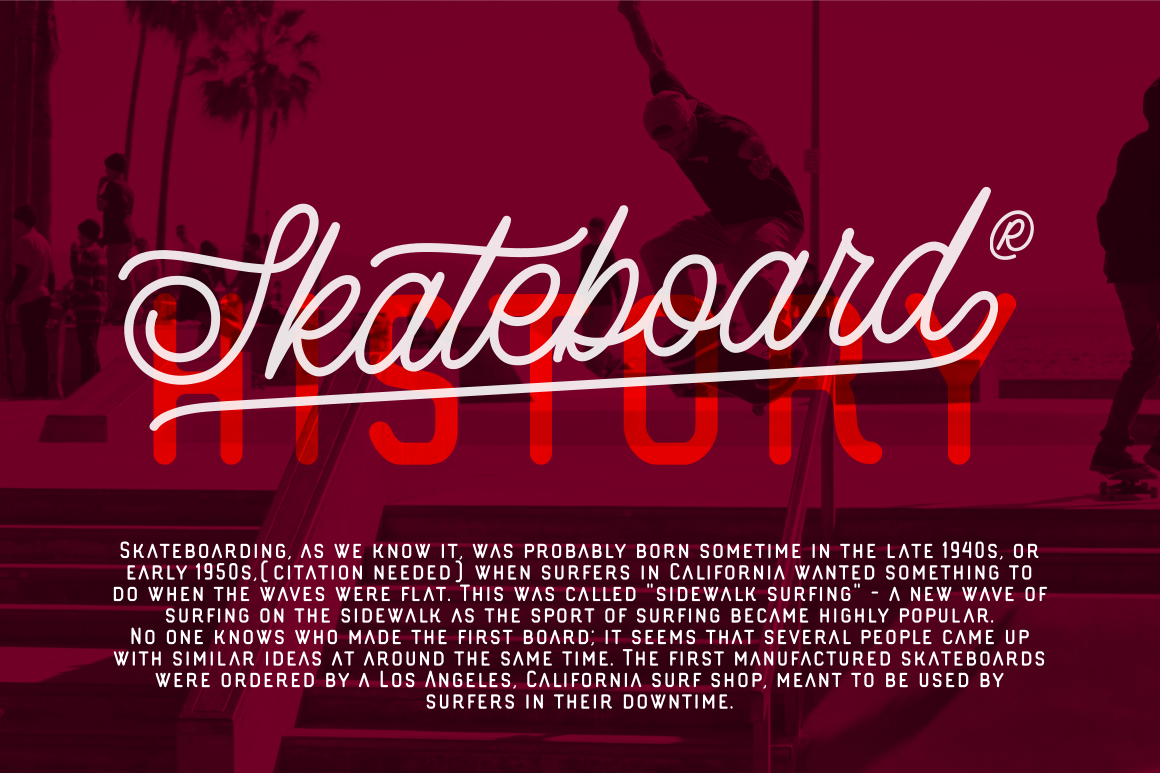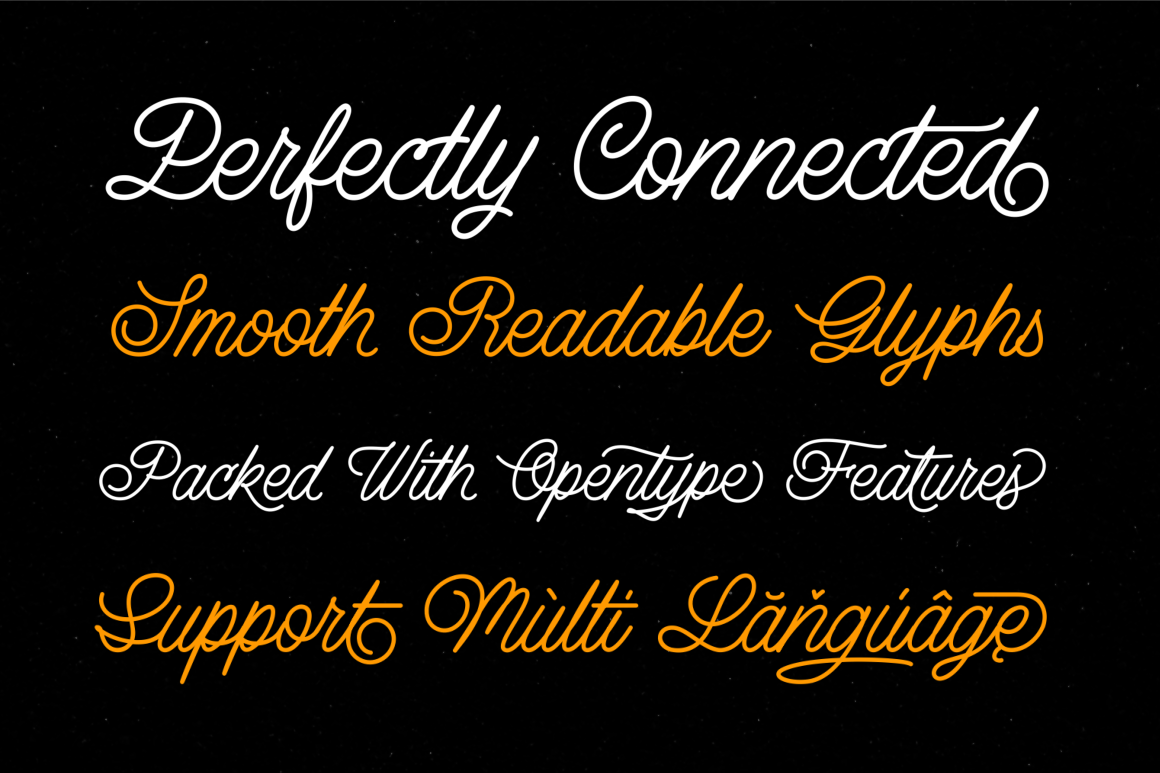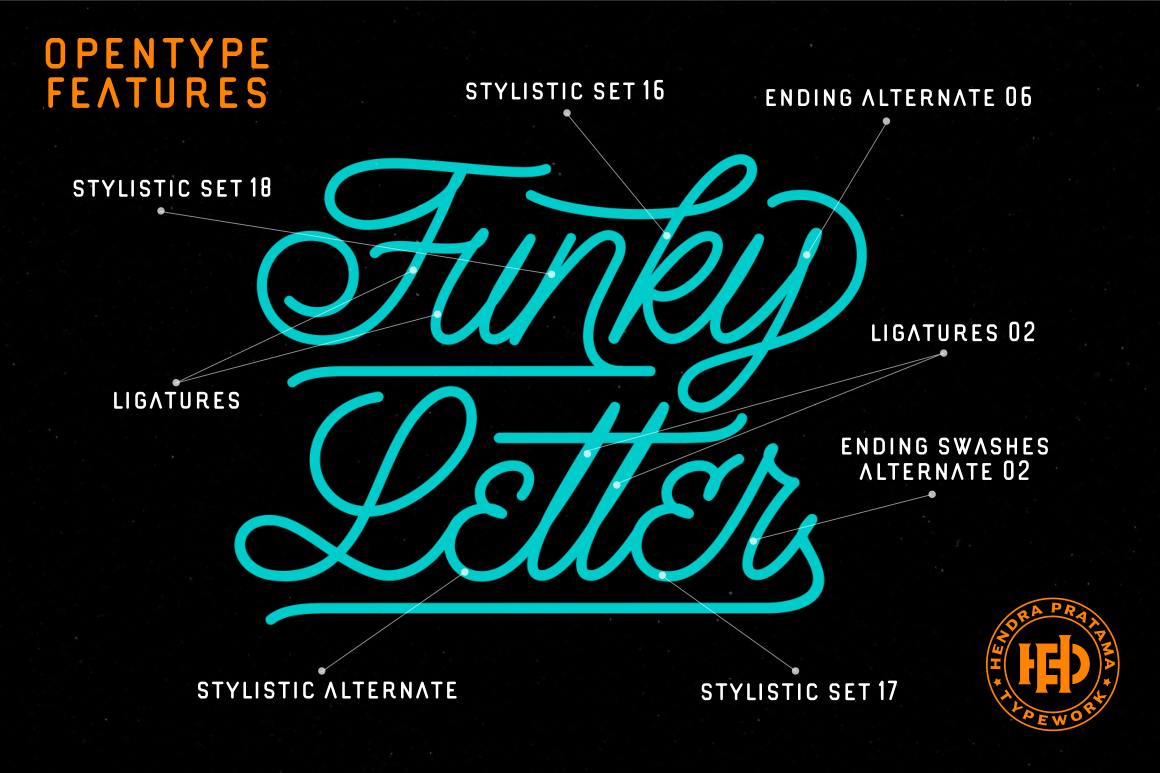
Introduction to Lazy Ride Font
As a designer, have you ever found yourself staring at a blank canvas, searching for the perfect font to bring your creative project to life? The excitement of a new design challenge can be thrilling, but it’s the little details that often make all the difference. For those who crave high-quality design resources, the discovery of a new font can be a game-changer.
Enter the Lazy Ride Font, a stunning mono-linear script font born from a custom logotype for the “Lazy Ride Club”, a classic motorcycle club. This beautiful font is not only a valuable addition to any designer’s toolkit, but it’s also PUA encoded, making it easy to access the available glyphs and swashes.
Whether you’re working on a design project or simply looking for a free download to add some flair to your next creative endeavor, the Lazy Ride Font is sure to impress. With its transparent background and versatile design, it’s the perfect resource for any designer looking to elevate their work.
Key Features of Lazy Ride Font
- Unique characteristics: cursive, handwritten, and script font styles
Honest Review: Lazy Ride Font
I recently had the chance to work with the Lazy Ride Font in one of my creative projects, and I must say it was a pleasant experience. This font has a unique charm that adds a touch of personality to any design.
- ✨ The Lazy Ride Font has a high-quality design that is perfect for a variety of creative projects. The font is clean, modern, and has a transparent background, making it easy to use in any design.
- ✨ The Lazy Ride Font has a wide range of characters, including uppercase and lowercase letters, numbers, and symbols.
While the Lazy Ride Font is a great design resource, there are a few limitations to consider. The font may not be suitable for formal or professional designs, as it has a more casual and playful feel.
Overall, I’m impressed with the Lazy Ride Font and would definitely recommend it for designers who are looking for a fun and creative solution for their next project. ⚠️ Just keep in mind its limitations and use it accordingly.
Tips for Getting the Most Out of Lazy Ride Font
Use the Lazy Ride Font with a transparent background to create a modern and sleek design. Experiment with different font sizes and colors to add visual interest to your project. You can also combine the font with other design elements, such as graphics and images, to create a unique and creative design.
Common Use Cases for Lazy Ride Font
The Lazy Ride Font is perfect for a variety of creative projects, including social media graphics, blog posts, and presentations. You can use the font to create eye-catching headlines, titles, and text overlays. The font’s high-quality design and transparent background make it ideal for use in a variety of design applications.